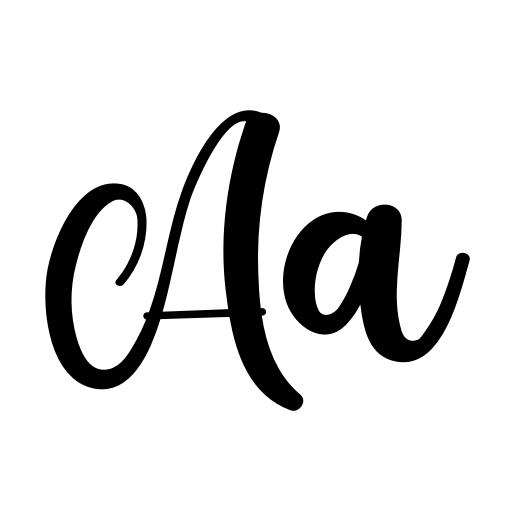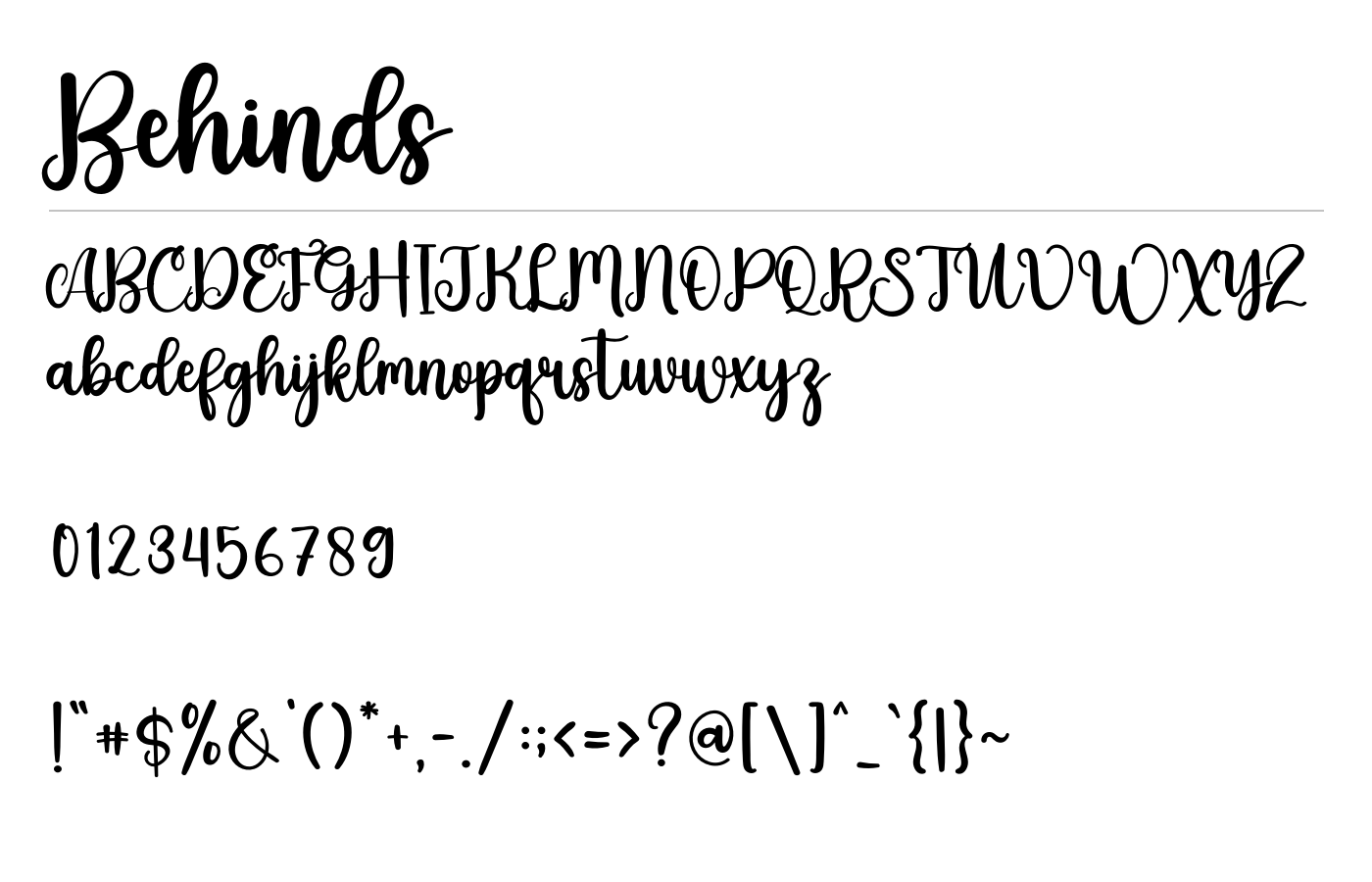
Behinds Font is a playful and elegant script typeface featuring smooth, rounded strokes with a lively, hand-drawn feel. Its mix of flowing lowercase letters and quirky uppercase characters makes it perfect for creative branding, invitations, and casual headlines where a friendly, approachable vibe is desired. This font works well in designs that aim to convey warmth and personality without sacrificing readability.
Behinds Font